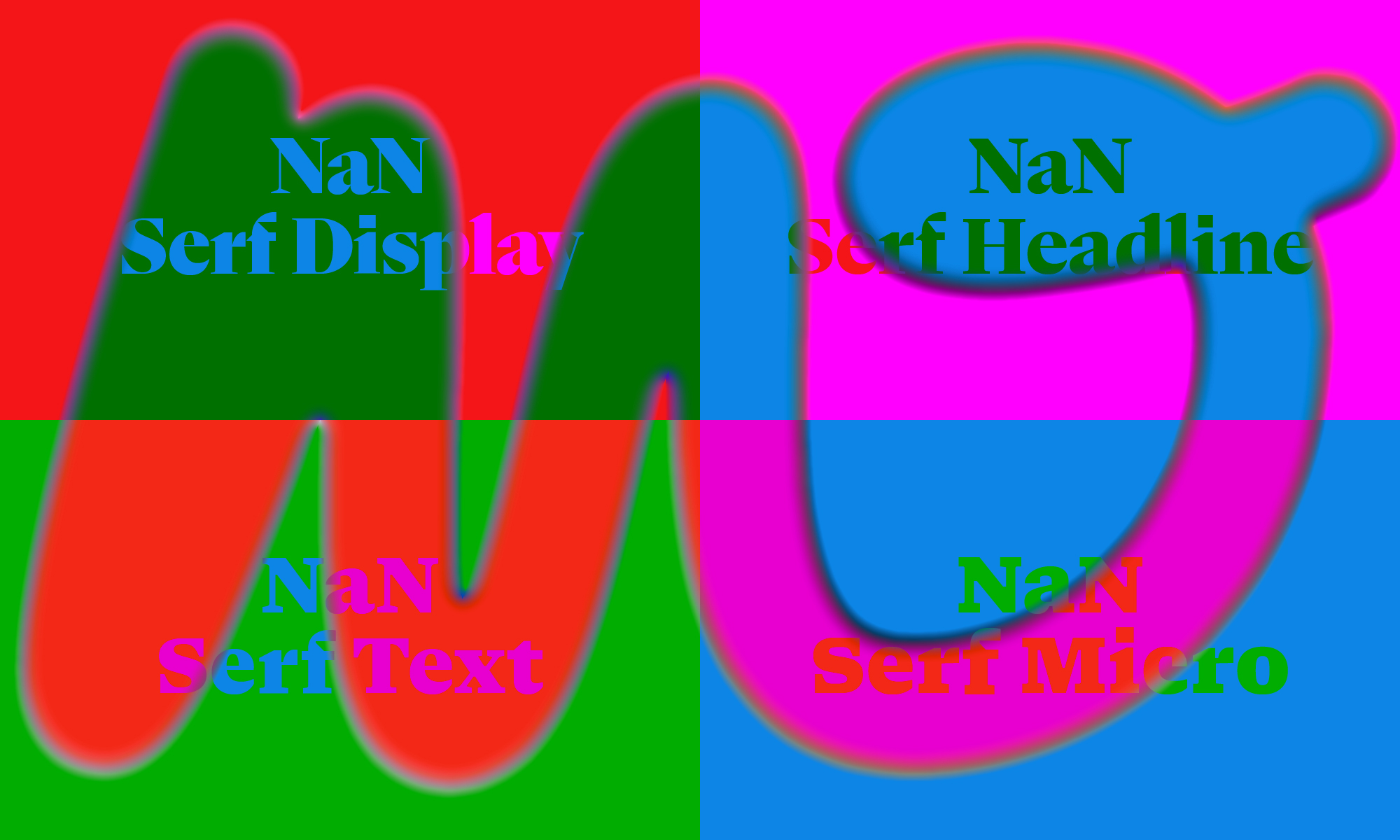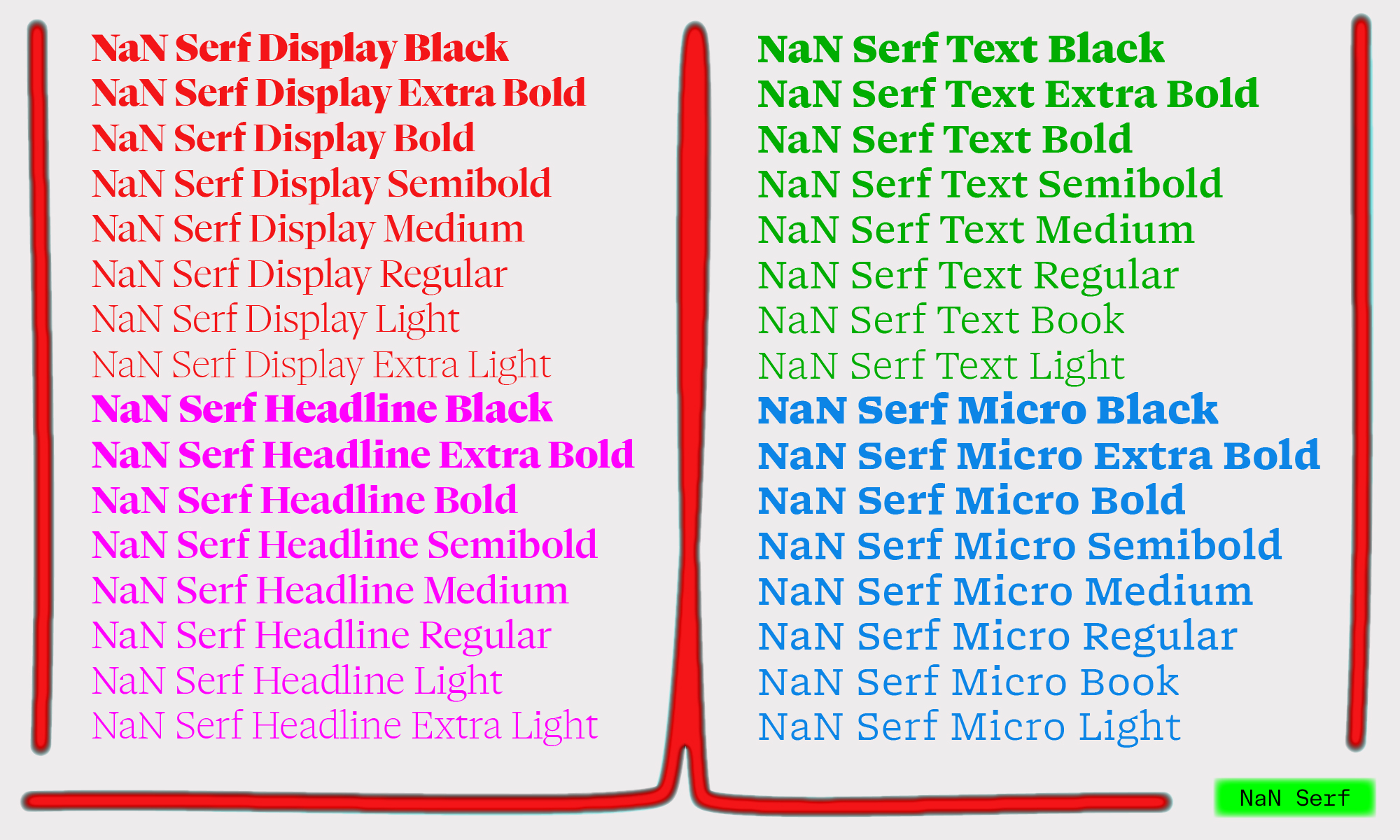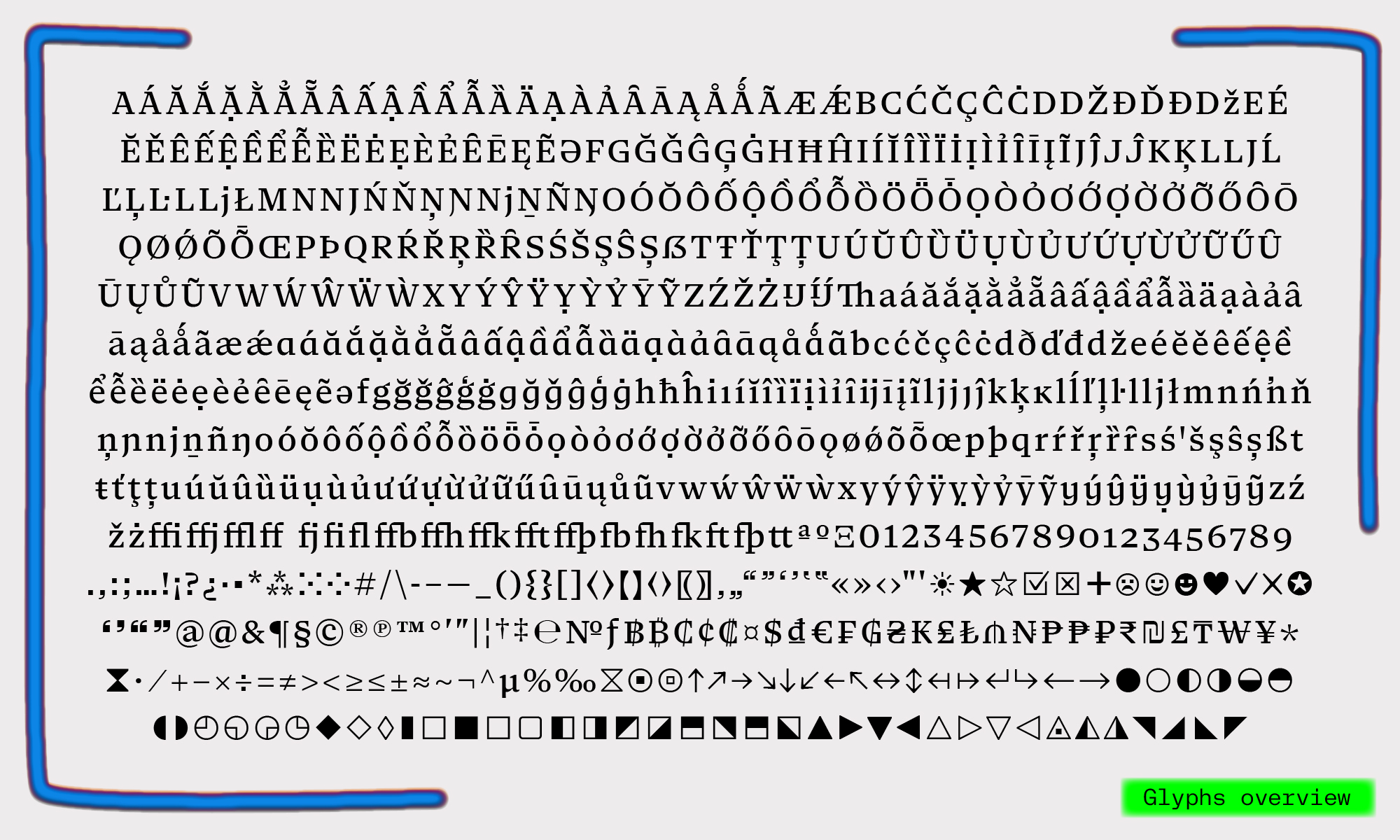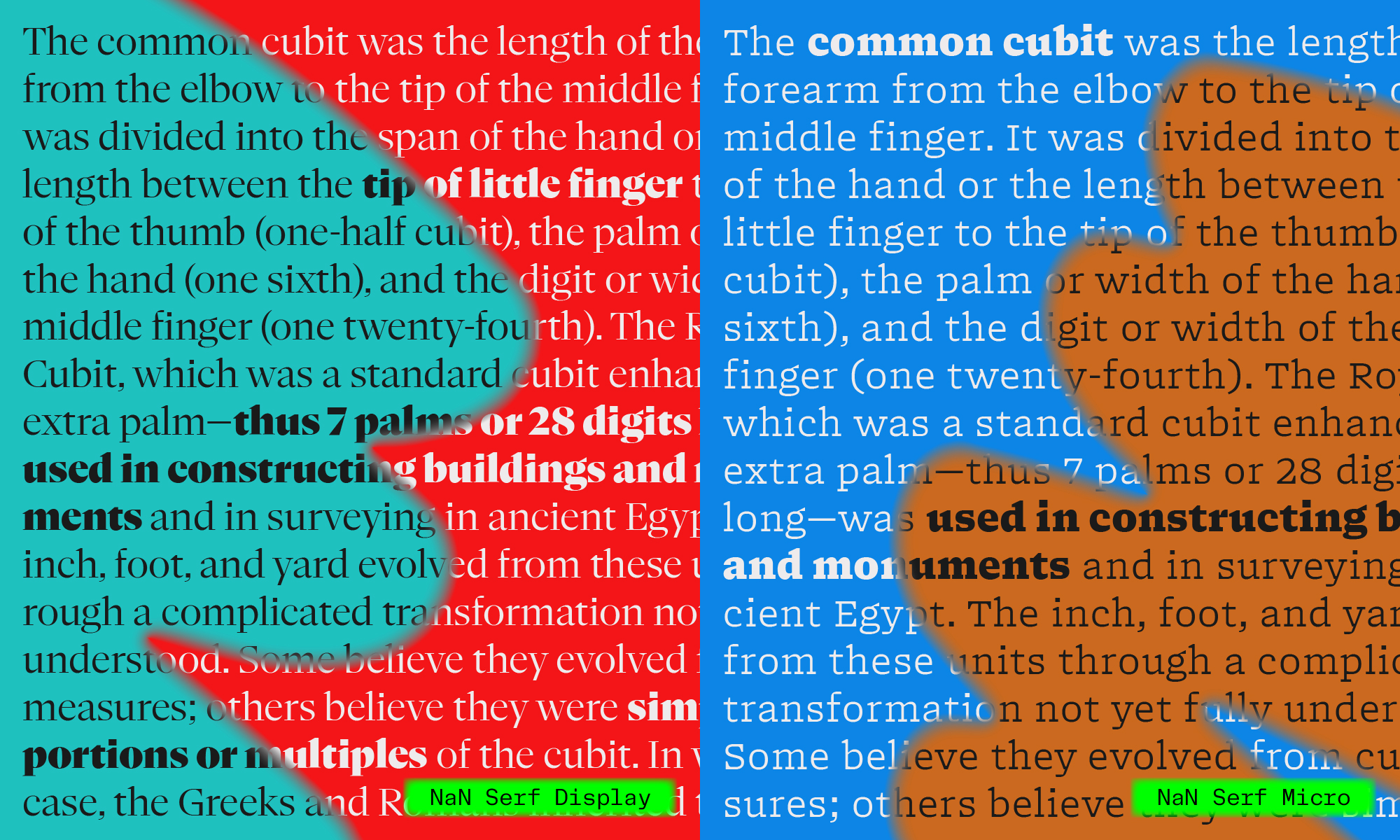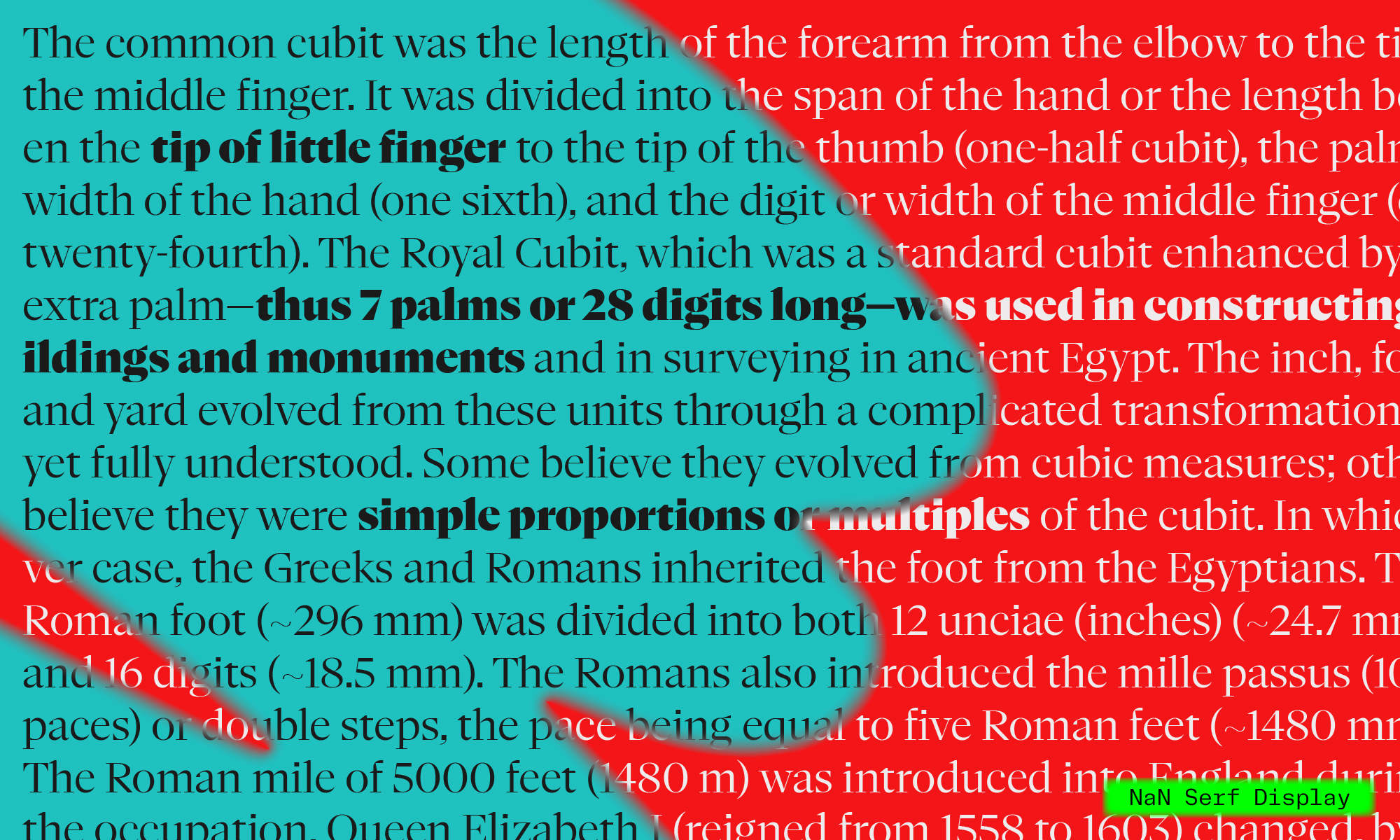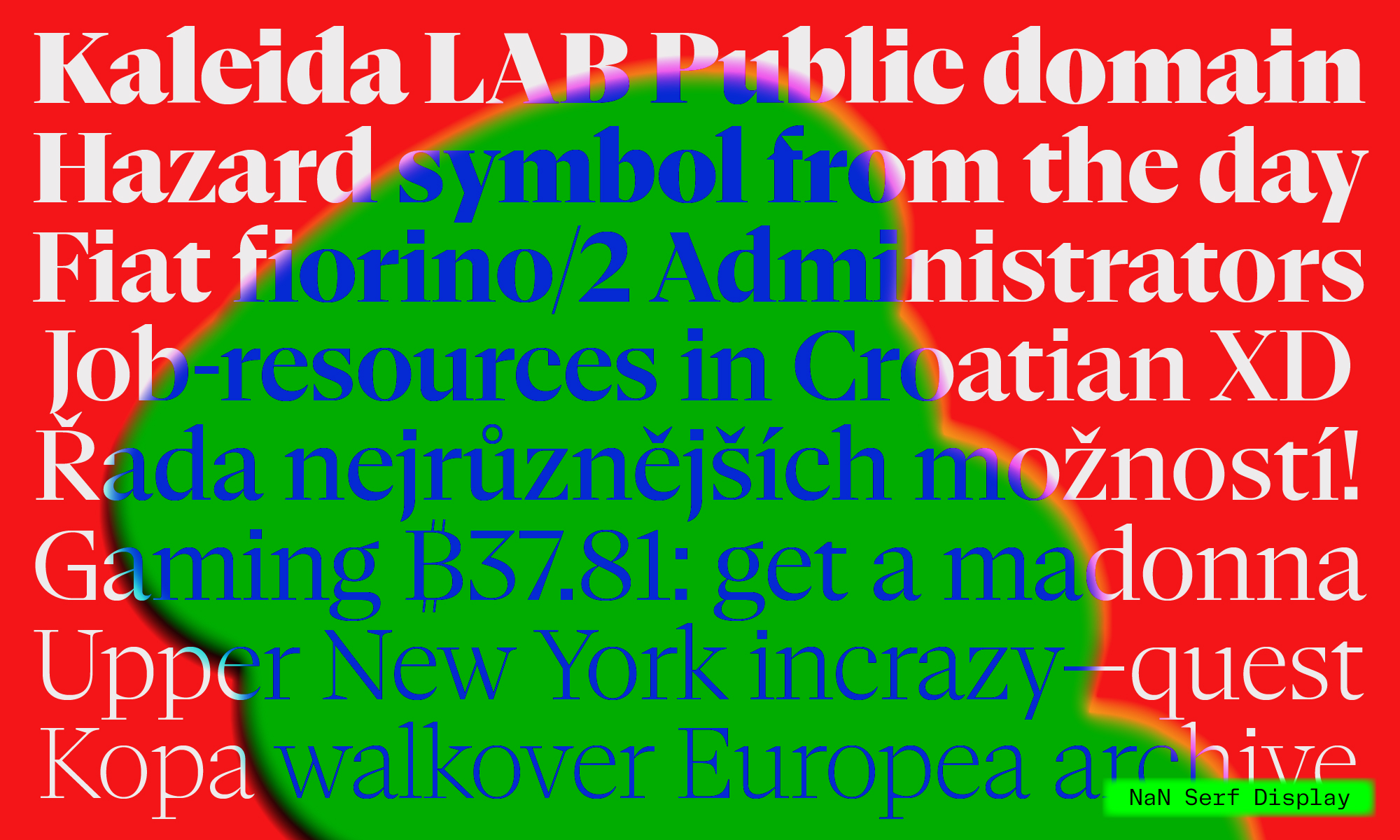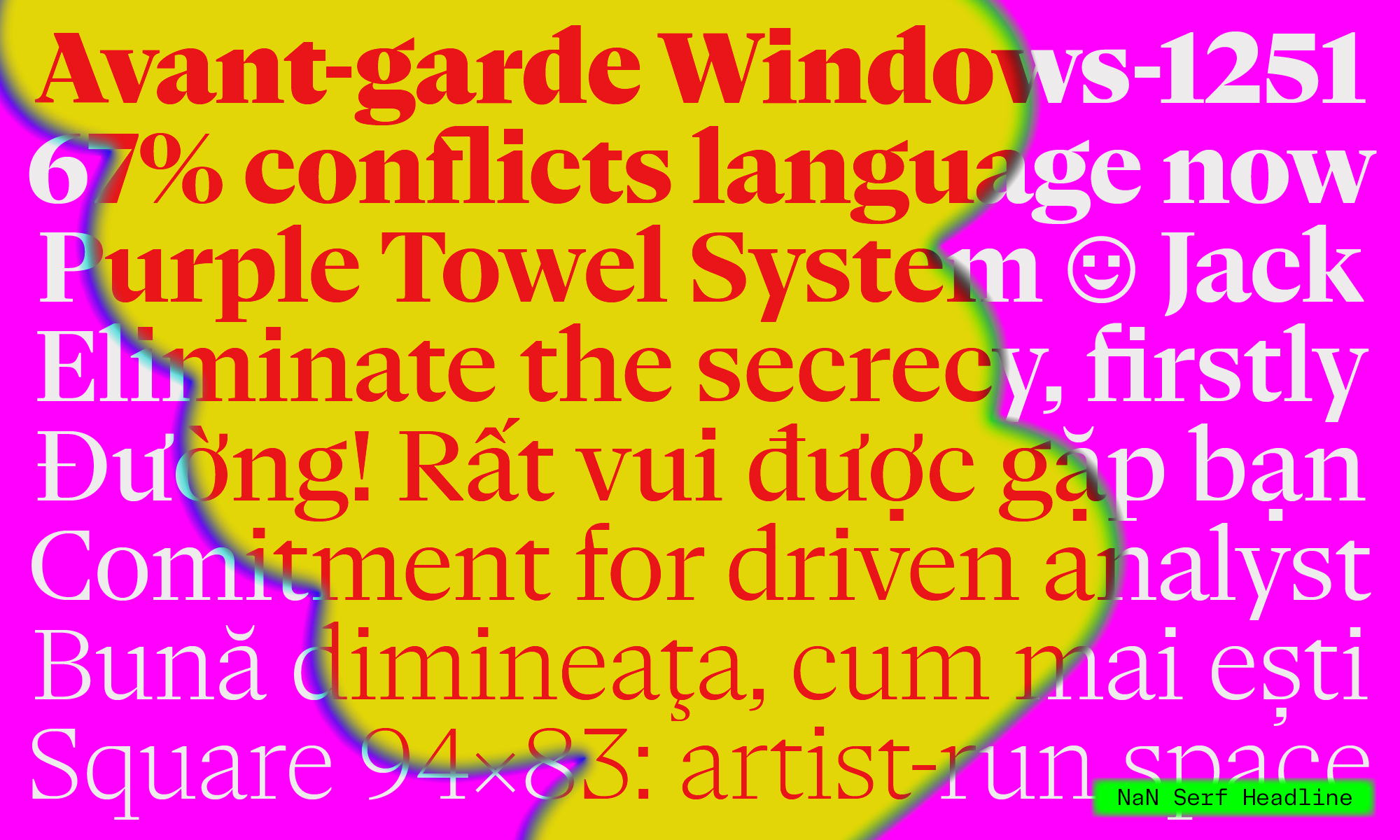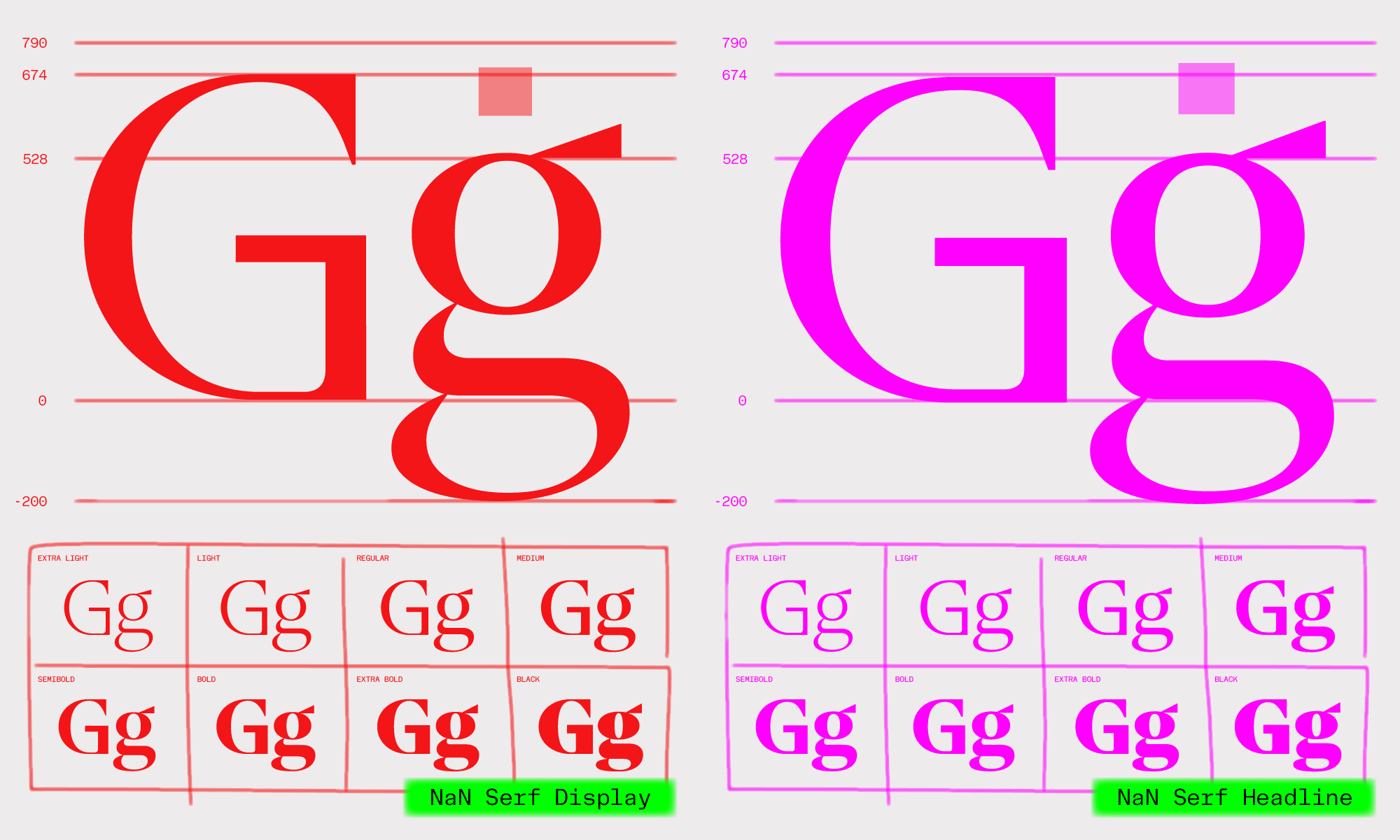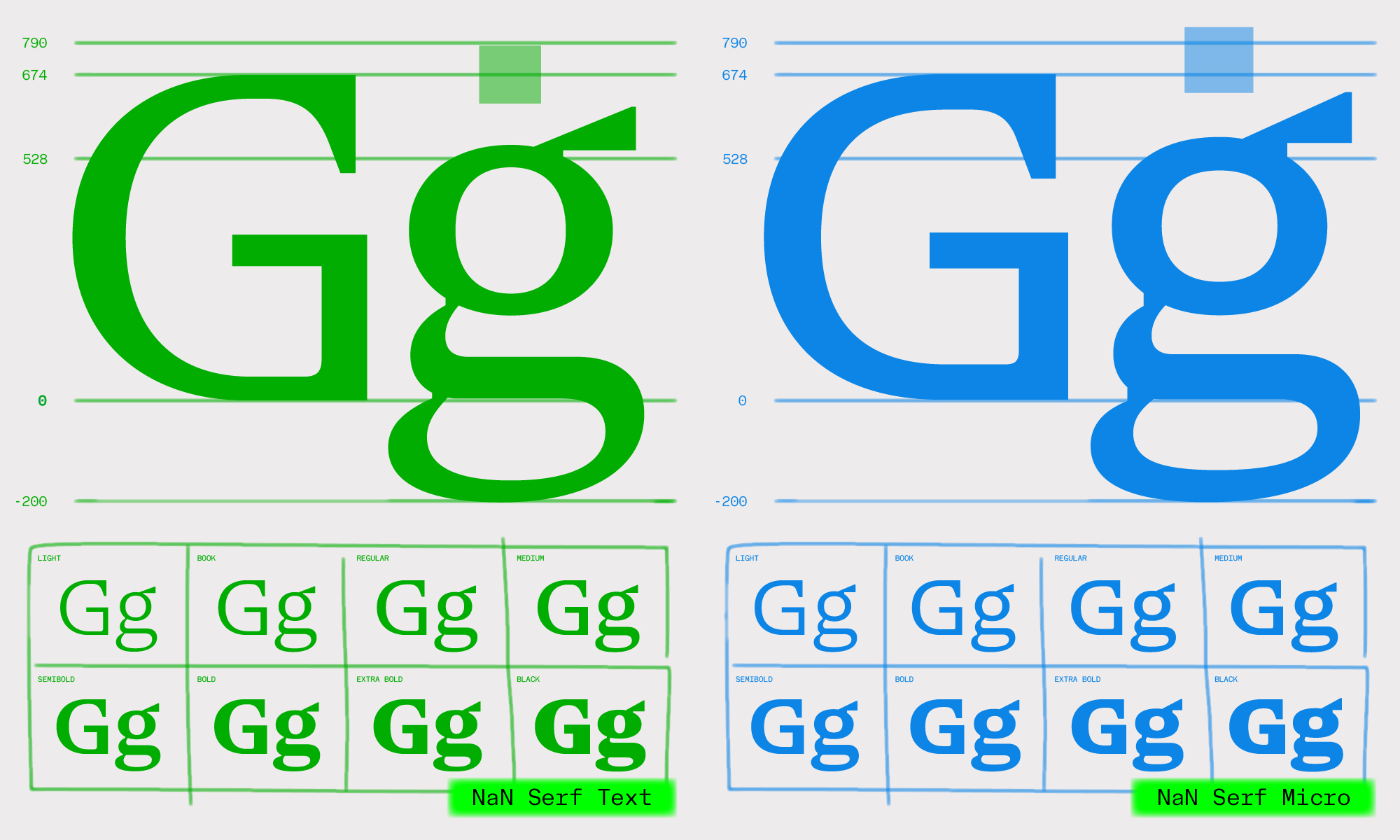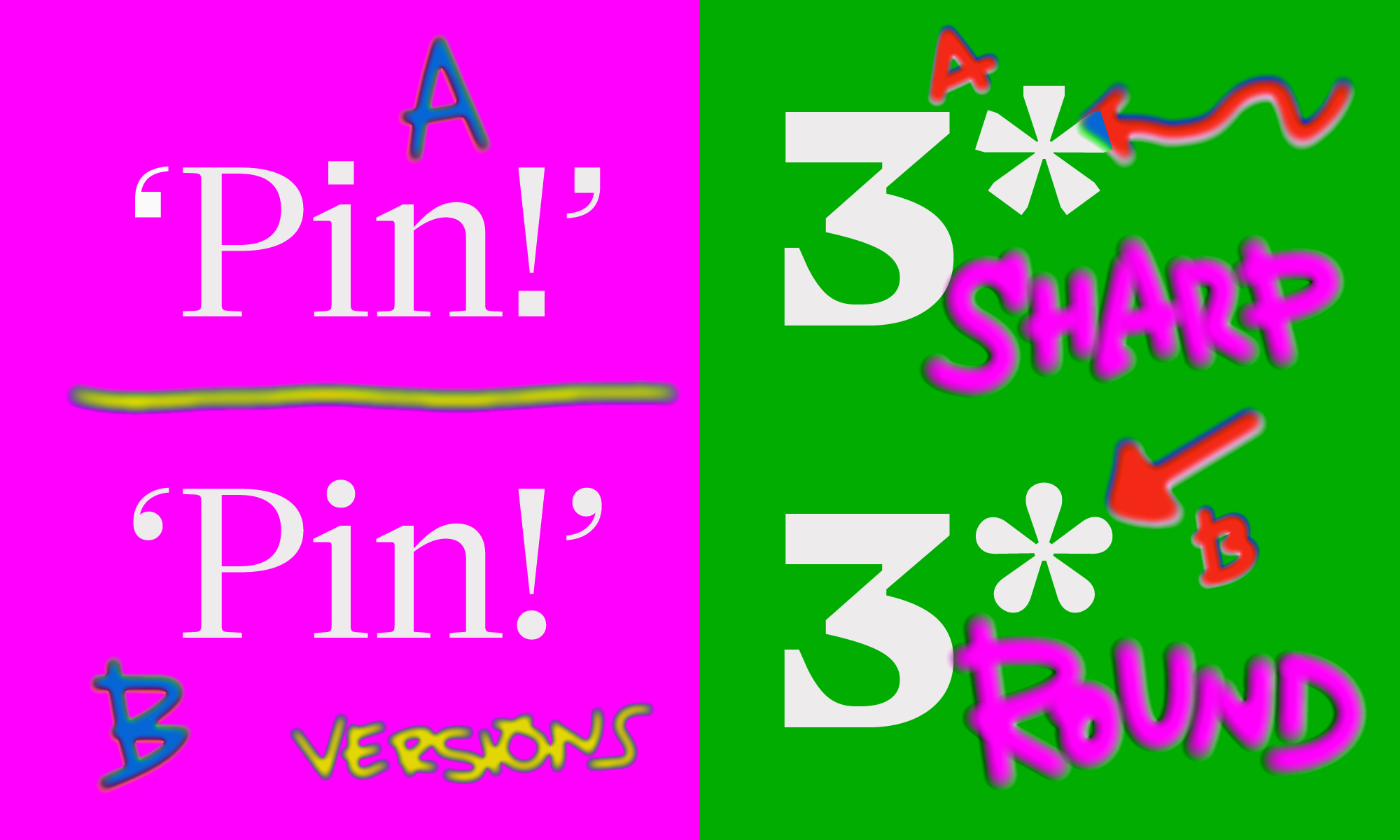
About NaN Serf
NaN Serf is our present-day old-style serif tailored to excel at all sizes. Orthogonal detailing brings a sharp vectorial alignment to a centuries old genre matching functionality with panache. At small sizes it imparts a warm letterpress quality while at larger sizes geometrical shaping gives it a crisp, contemporary finish. Serf comes in 4 optical sizes from a look-at-me Display to a pragmatic Micro cut.
Designed with versatility in mind Serf is as comfortable in editorial environments as in digital and branding use. Its 8 weights per optical size giving the flexibility needed for a variety of applications. Go big or small or go home.
Its perpendicular terminals, open counters and distinctive flat terminal-endings behave particularly well on screen with sharp pixel-snapping complimenting an intentional graphic imperative. Serf is a web-ready type family, developed to behave well large and small, on screen and in print, making it an ideal multi channel typeface. Like all our fontz it contains a rigorous character set, wide language support and a few silly surprises. See the PDF for more details.
And the kicker: NaN Serf is available in 2 distinct versions: Serf A ■ features stylised squared punctuation and dots while Serf B ● sports traditional rounded forms for the more conservative at heart.
Typeface: NaN Serf
Designed by NaN